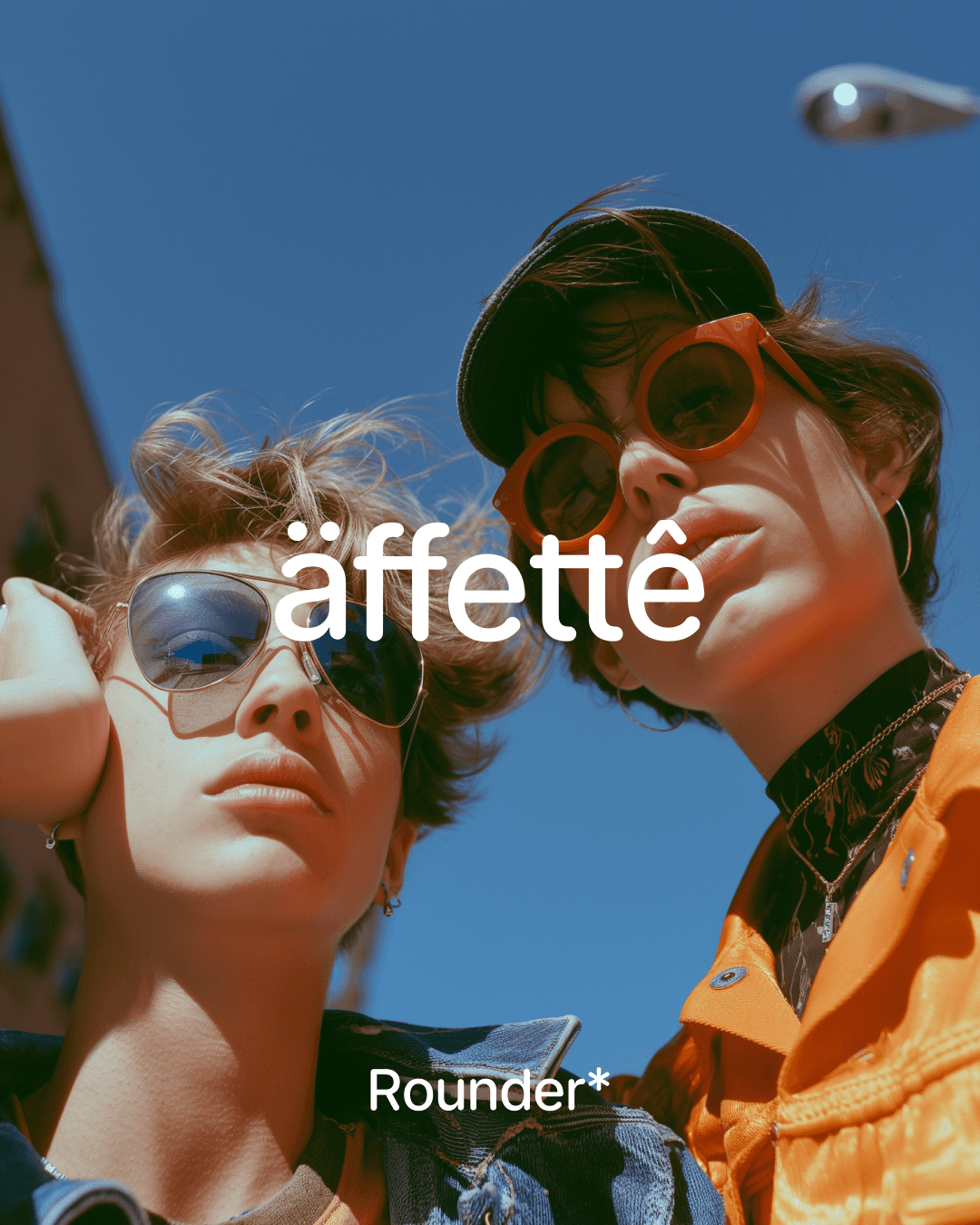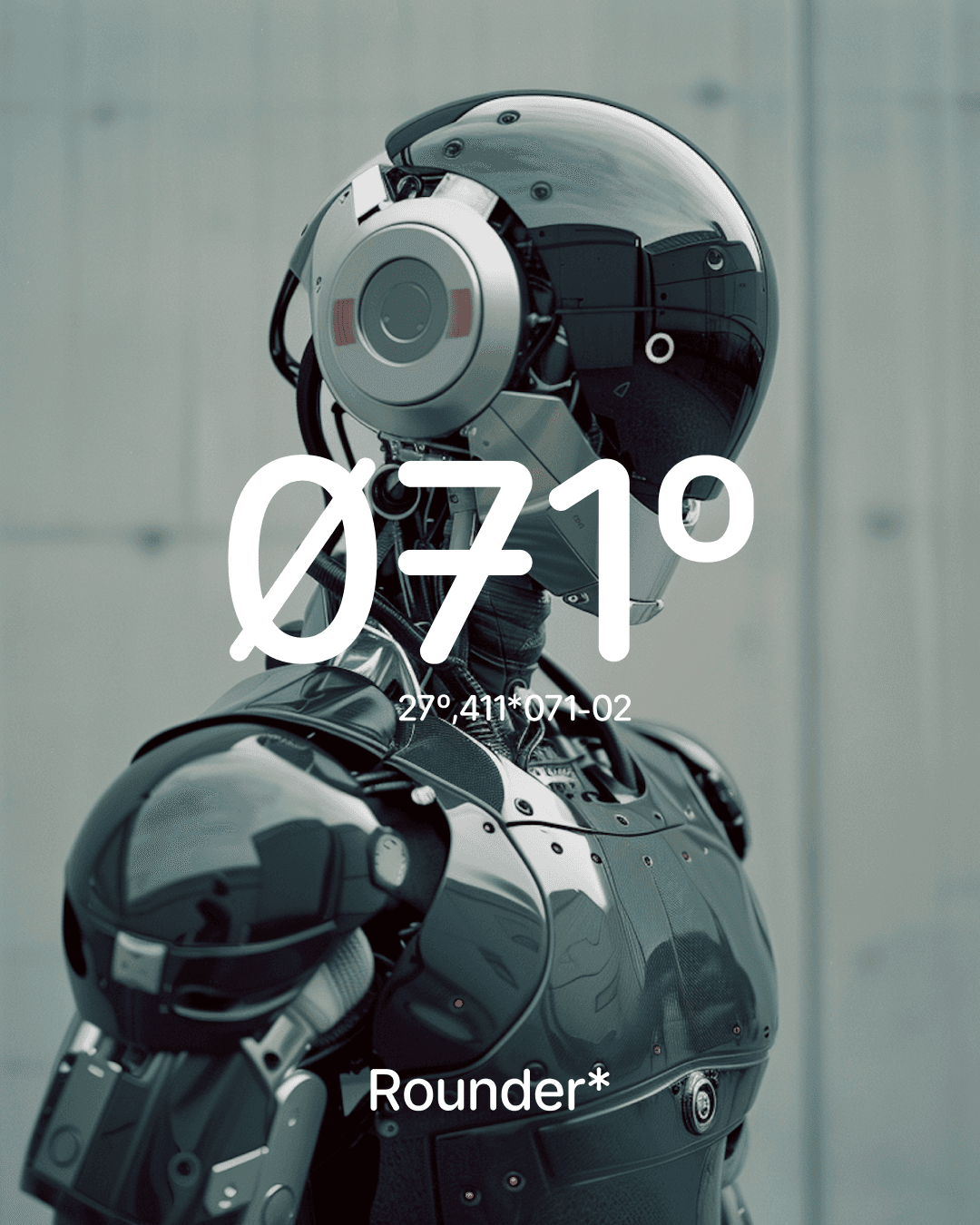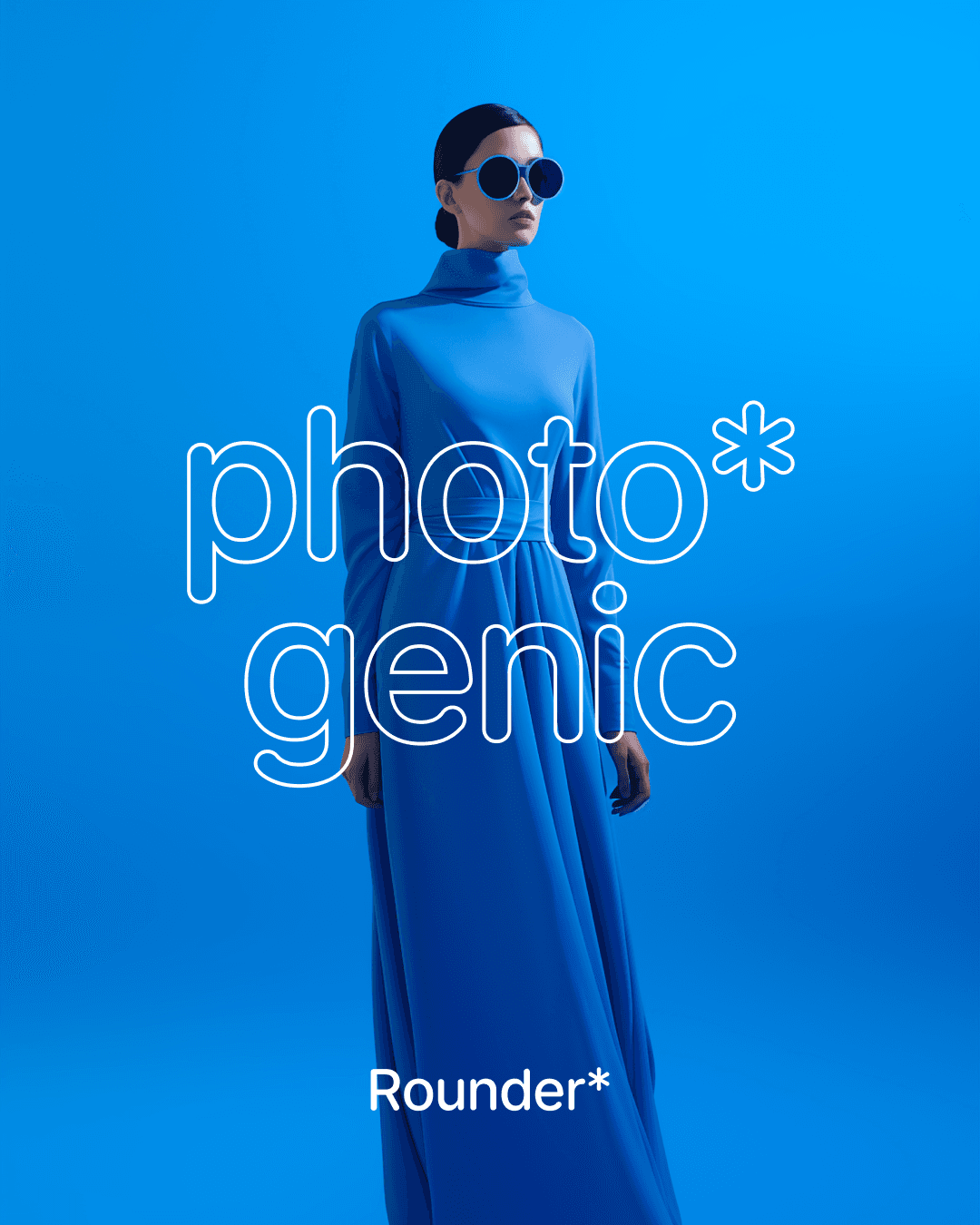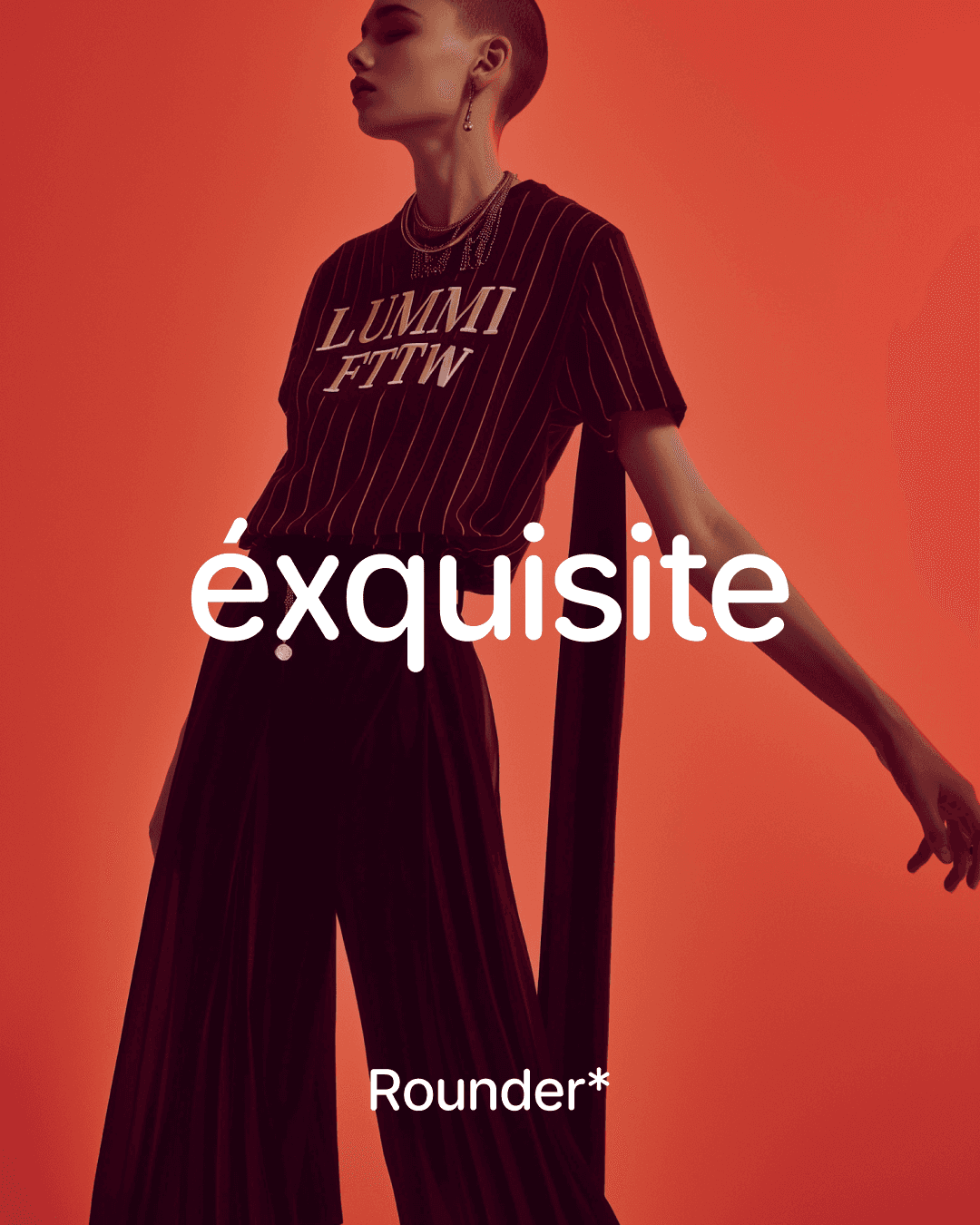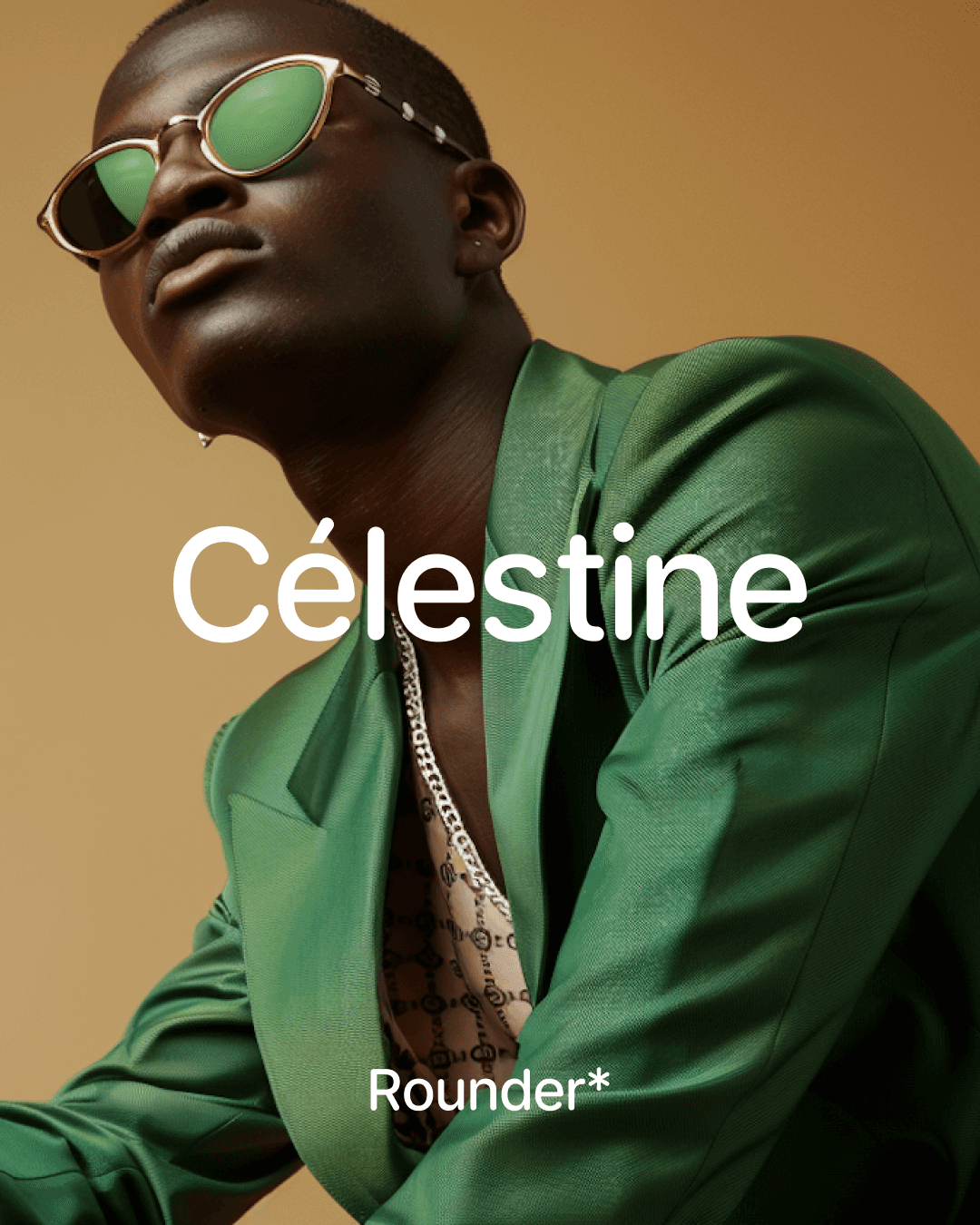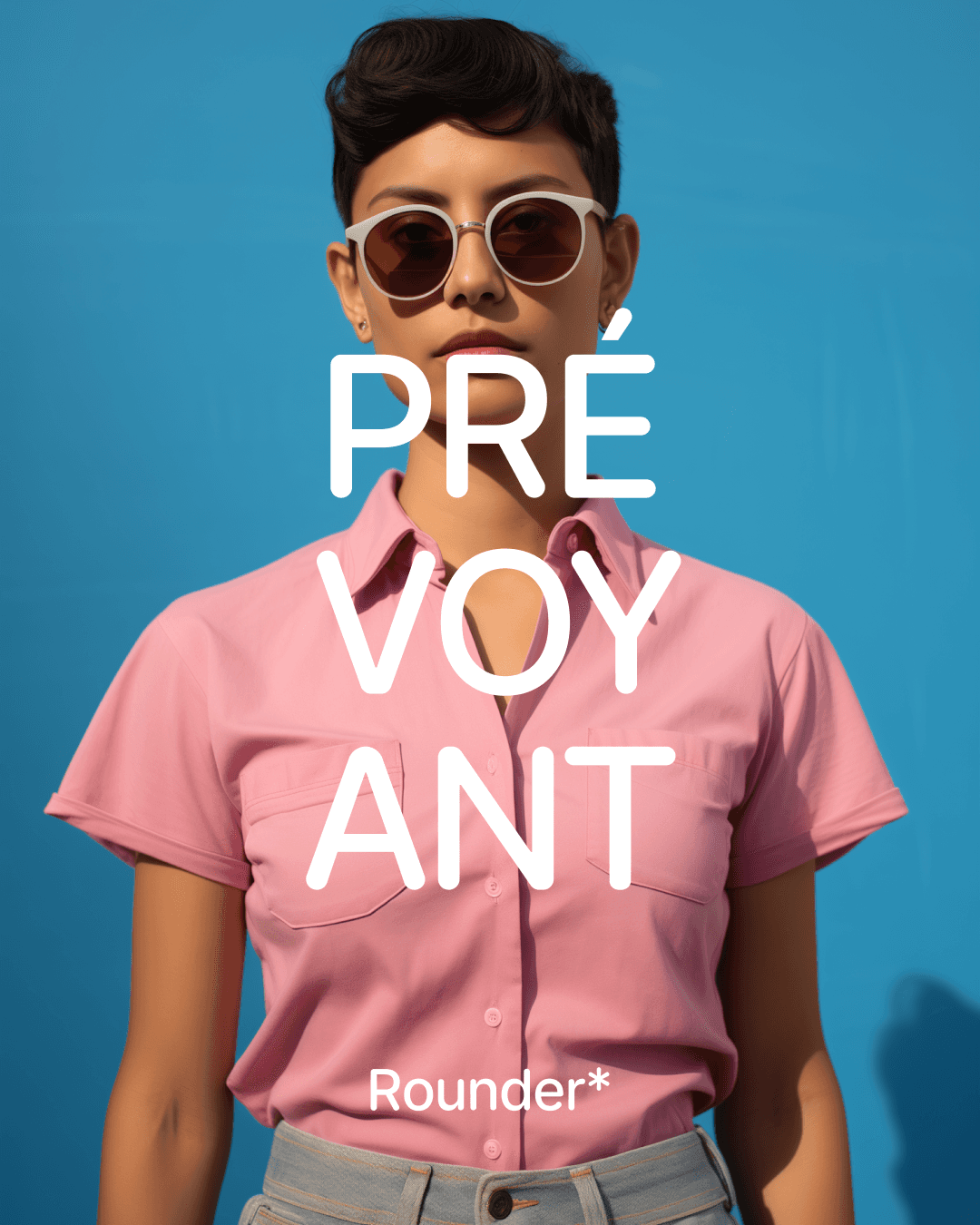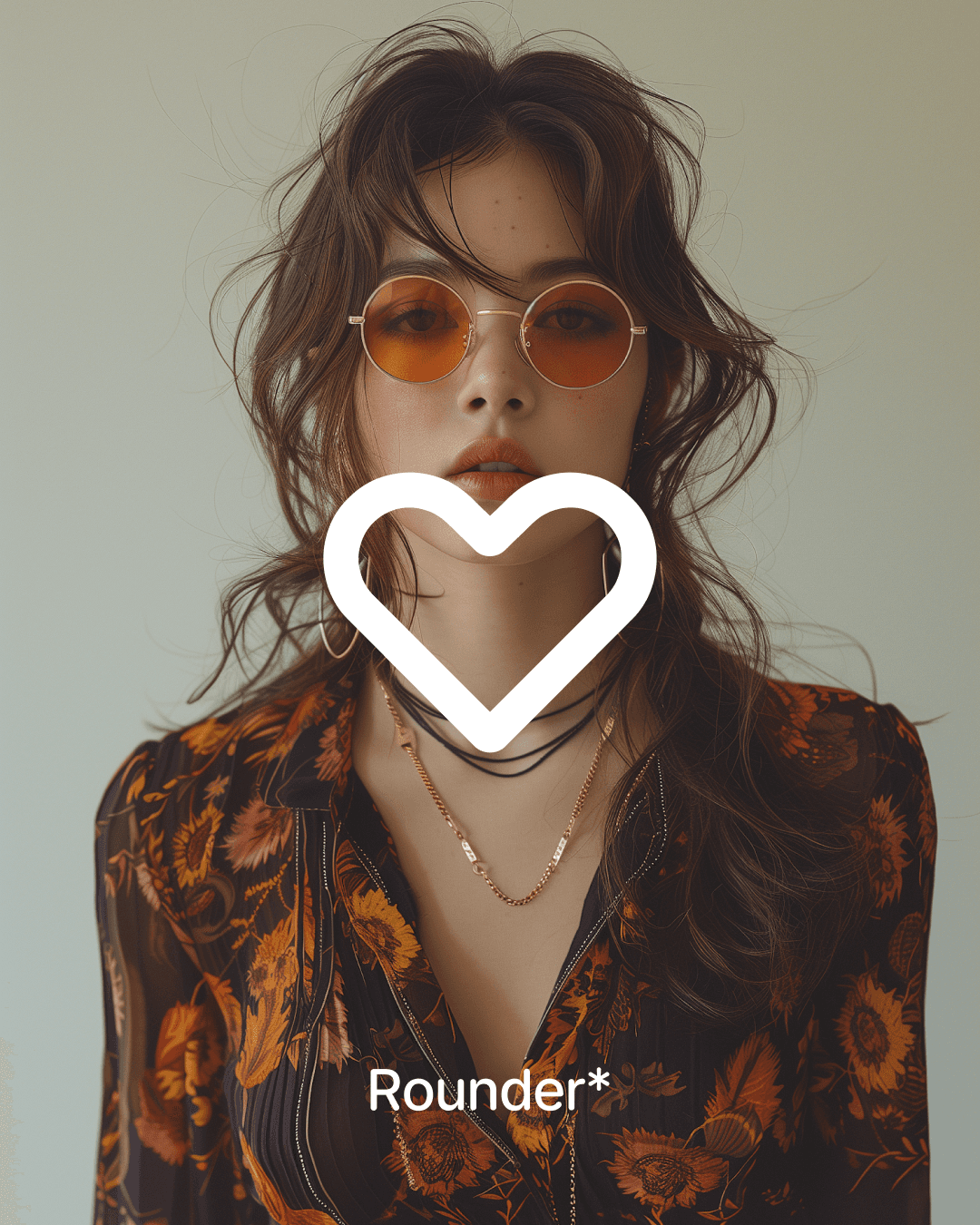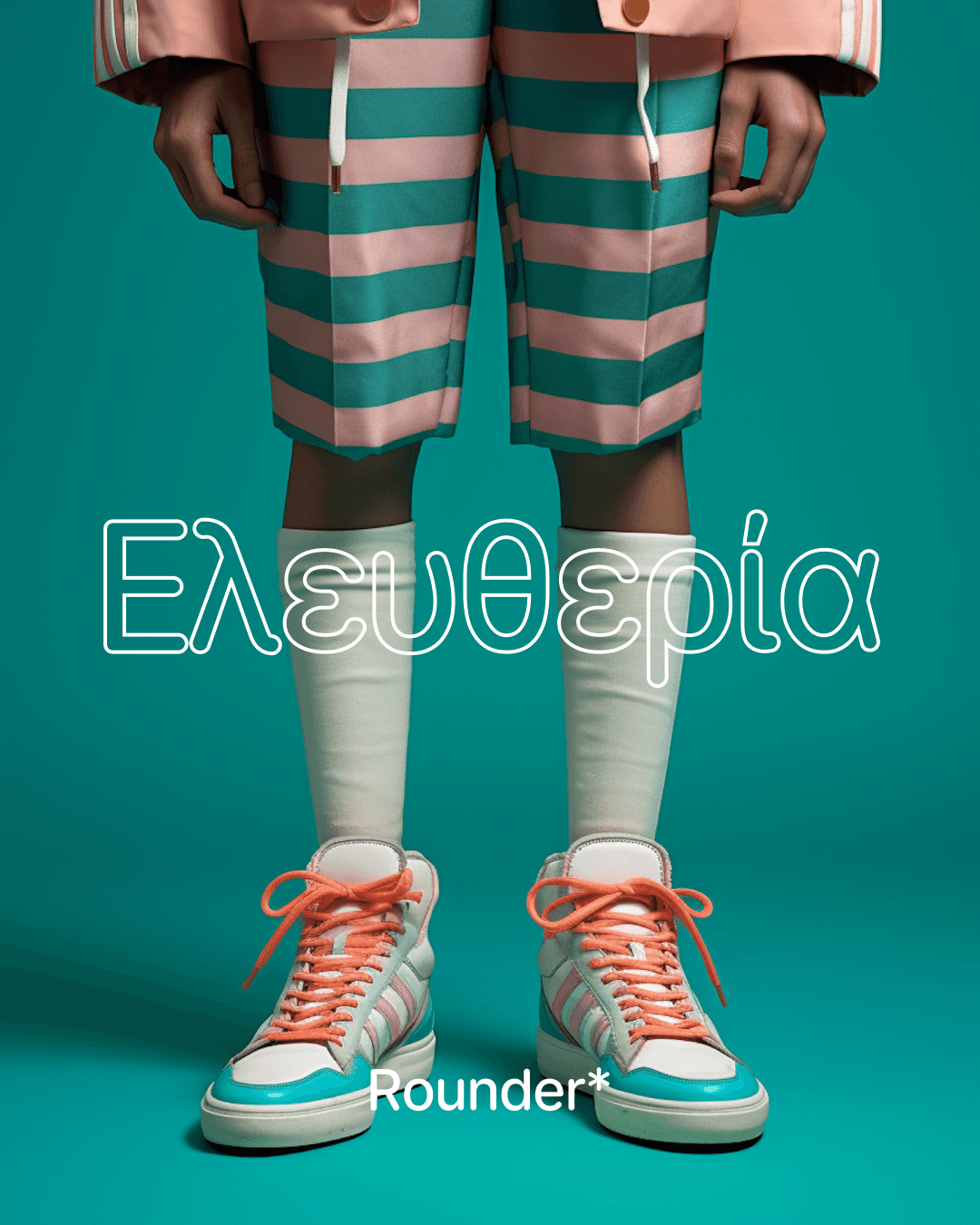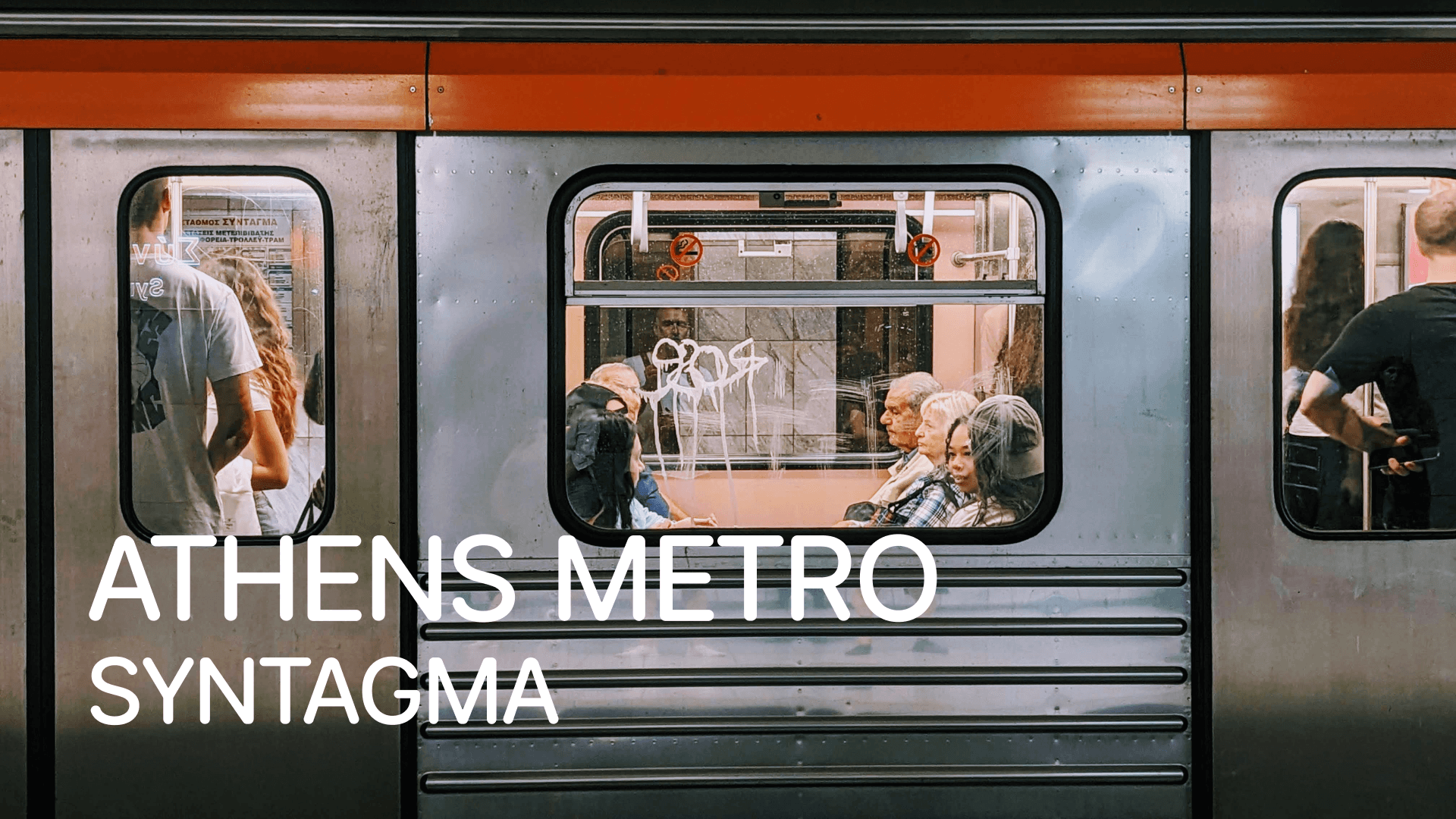
Say hello to Rounder*
A custom designed font inspired by the clean lines of Inter. I've softened and rounded every edge to create a font that feels friendly and modern. Ideal for wayfinding, digital displays, and more.
A font that has distilled the purity of minimal design into smooth, rounded lines, creating a typeface that embodies modern elegance and clarity in typography.
Rounder* is perfect for digital displays, wayfinding, and everything in between. This font redefines readability with a touch of refined simplicity. It's not just a font; it's a statement of clarity and aesthetic purity.